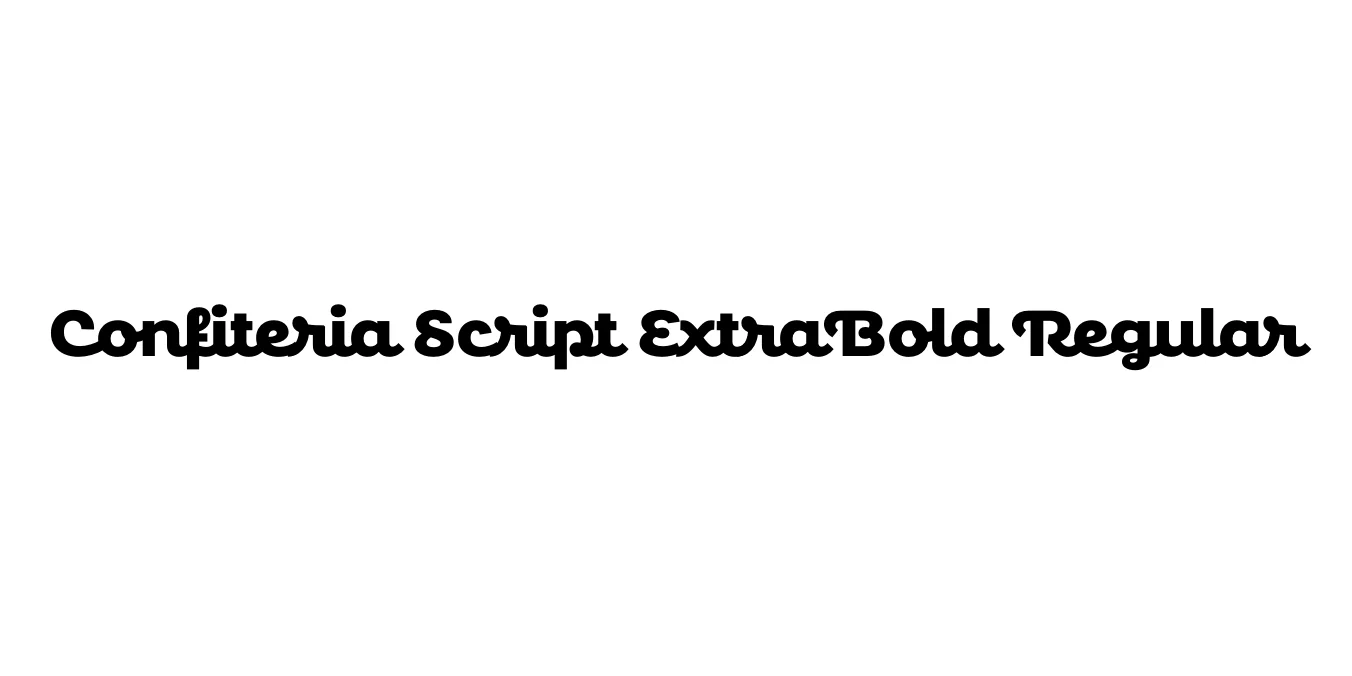
Confiteria Script ExtraBold Regular
Designed by Ale Paul
Confiteria Script ExtraBold Regular is a masterful script typeface designed by the renowned Ale Paul for the Sudtipos foundry. Drawing inspiration from the nostalgic signage found in the traditional bakeries and confectionery shops of Buenos Aires, this font captures a unique blend of South American charm and professional digital craftsmanship. The ExtraBold weight provides a thick, luscious stroke that ensures high visibility while maintaining the rhythmic elegance of traditional handwriting.
This typeface is highly versatile due to its extensive OpenType features, which include numerous alternates and ligatures that mimic the fluidity of authentic calligraphy. It is particularly well-suited for projects that require a touch of human warmth and artisanal quality, making it a staple for designers looking to create memorable, high-impact headlines and decorative branding elements.
Confiteria Script ExtraBold Regular Best Uses
Perfect for creating artisanal logos and identity systems for food and beverage brands.
Excellent for sweets, chocolates, and high-end confectionery product packaging designs.
Ideal for bold, friendly headlines in posters, menus, and social media marketing graphics.